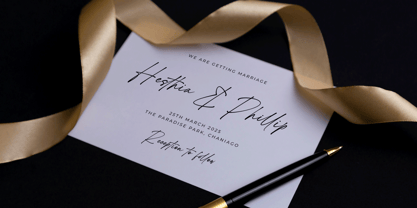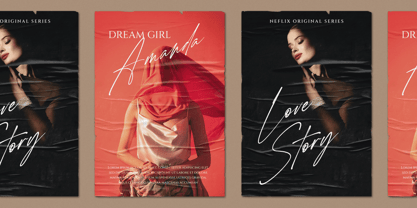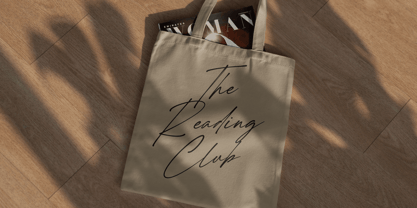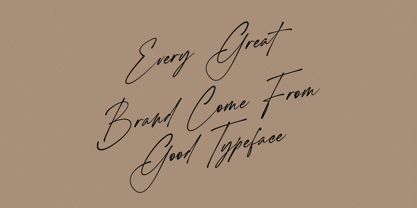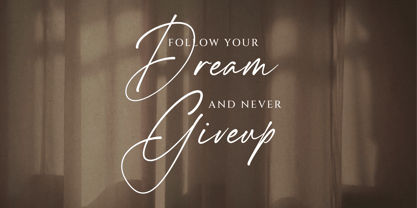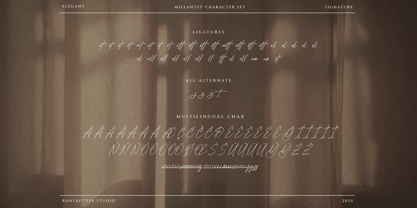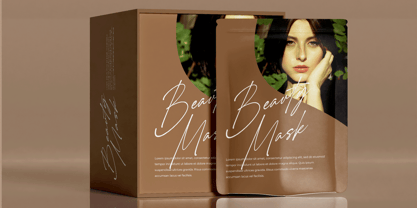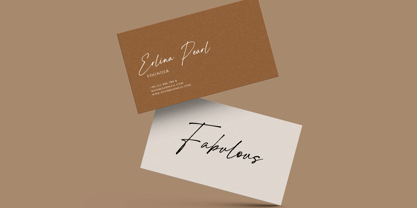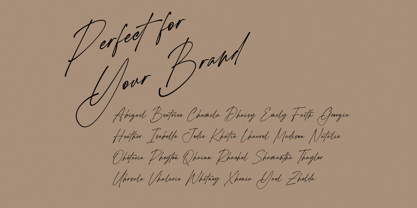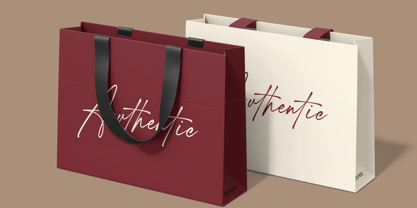
Millantey
by RantauType
The Millantey Font Family was designed by Yudi Pratama Chandra and published by RantauType. Millantey contains 1 styles. More about this family
Millantey is elegant script font embrace grace and feminity. Millantey come with stylish character to create your design project stand out! Millantey is a professional choice for any creative endeavor, creating elegant, modern, chic, lifestyle design such as logotype, title, cover, branding, invitations, wedding designs, display and magazine, social media posts, advertisements, printed quotes, product packaging, corporate brand, product designs, labels, photography, watermarks, special events and any other project with handwritten touch.
• Ligature and alternate